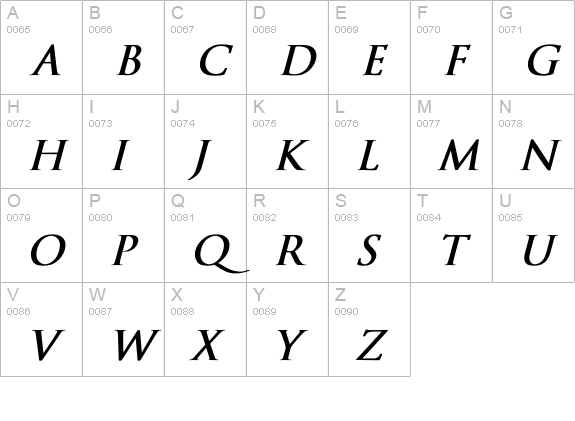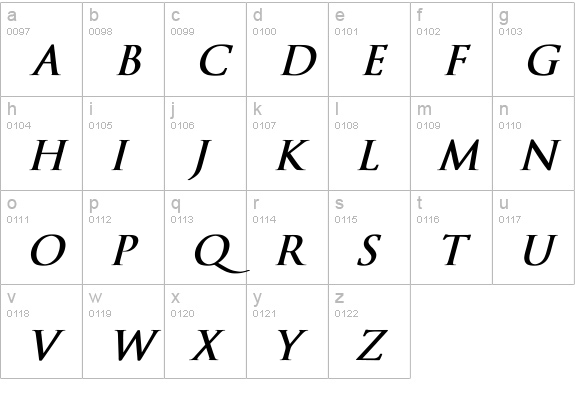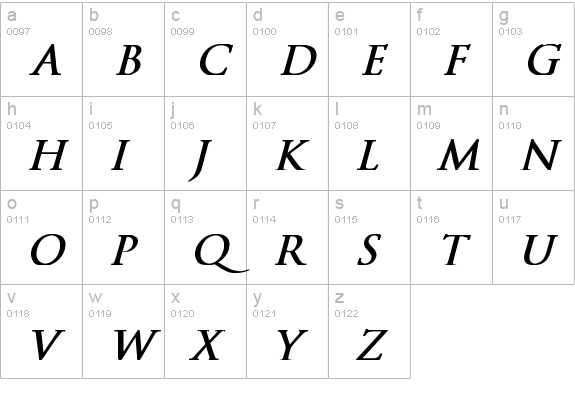
Trajan-Normal Bold Italic is the standard, neutral, italic variant in the Trajan typeface family \xE2\x80\x94 well suited to general body text, paragraphs, and standard typographic work.
Trajan-Normal Bold Italic font is a stunning and sophisticated typeface that effortlessly combines elegance with modernity. Its bold and italic design adds a touch of dynamism and expressiveness to any text, making it perfect for creative projects that require a strong and stylish visual impact. This font features refined and well-balanced letterforms that exude a sense of authority and professionalism. The bold weight gives it a strong presence, while the italic style adds a touch of flair and sophistication. Whether used for headlines, titles, or body text, Trajan-Normal Bold Italic commands attention and elevates any design to new heights. One of the most remarkable aspects of this font is that it is free to download at FontsMarket.com. This means that designers, creatives, and typography enthusiasts can easily access and utilize this impressive typeface without any financial constraints. By offering Trajan-Normal Bold Italic as a free resource, it empowers individuals to bring their creative visions to life without compromising on quality or style. With its versatility and striking aesthetics, Trajan-Normal Bold Italic is a font that can be employed across a wide range of design projects. From branding and advertising to packaging and editorial design, this typeface will add a touch of sophistication and professionalism to any medium. Its carefully crafted letterforms ensure legibility, making it suitable for both print and digital applications. In conclusion, Trajan-Normal Bold Italic is a captivating font that effortlessly combines boldness, elegance, and expressiveness. It is freely available to download at FontsMarket.com, providing designers and creatives with a valuable resource that can enhance their work. Whether used for personal or commercial projects, this font is sure to leave a lasting impression and elevate any design to new levels of excellence.